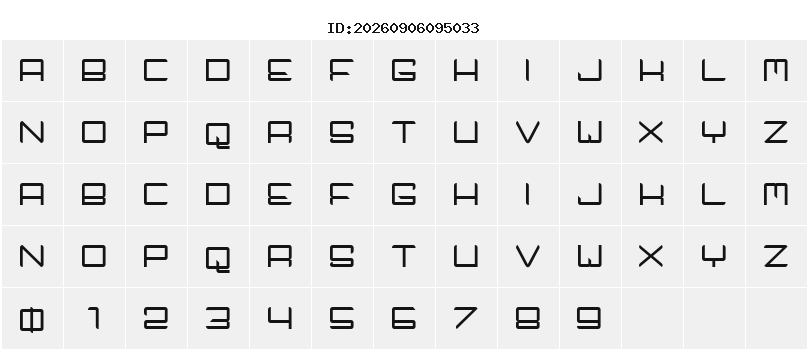
Tech Noir Preview
• Font Name: Tech Noir
• Font ID: JohnGauthier: Tech Noir Sans: 2014
• Full Font Name: Tech Noir
• PostScript Name: Tech Noir
• Character Count: 71
• Designer: John Gauthier
• Manufacturer: John Gauthier
About Tech Noir.ttf
Tech Noir.ttf is a modern, elegant sans-serif font designed for ultimate readability and visual harmony. Perfect for branding, headlines, web design, and print materials.